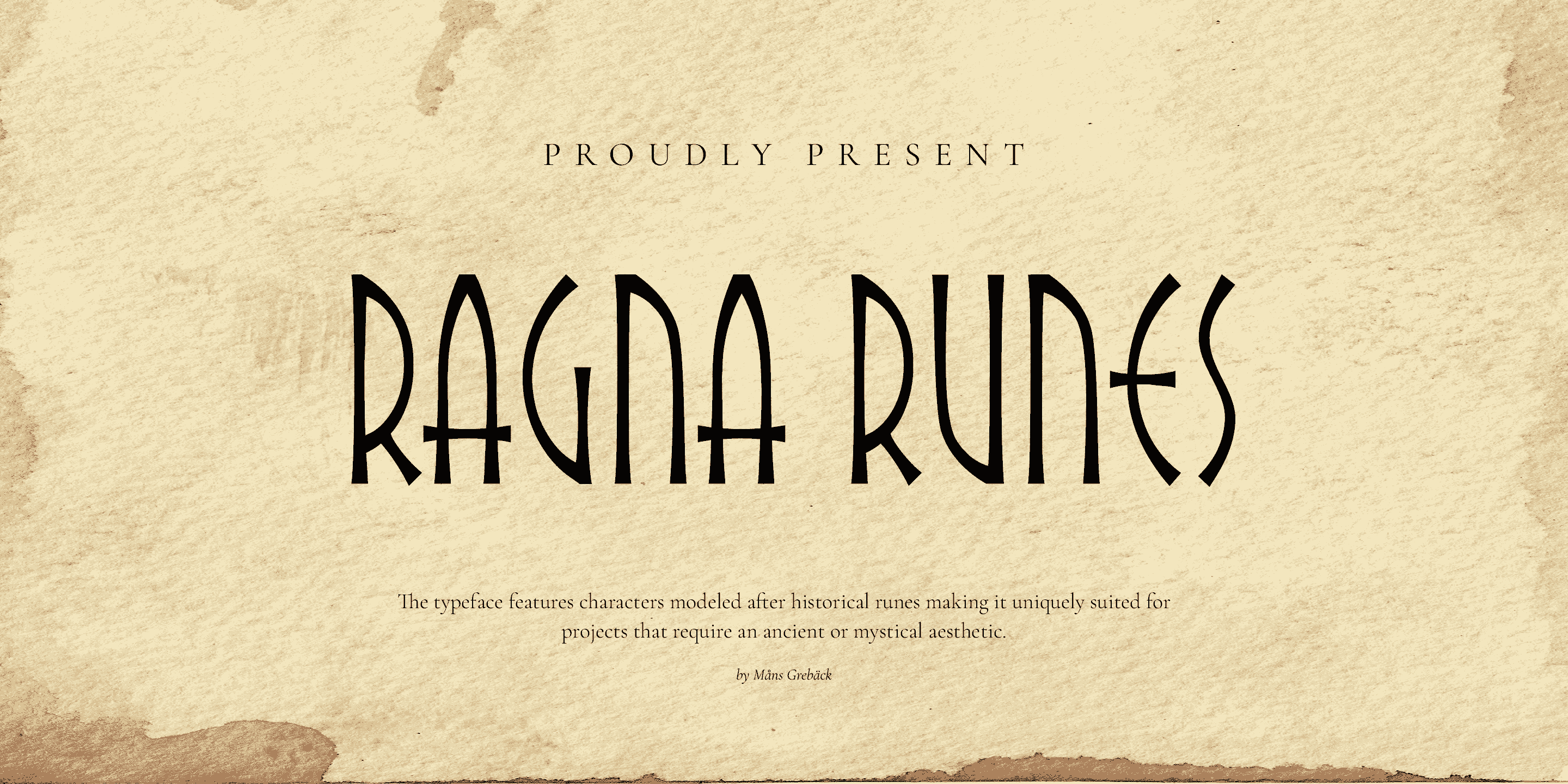
Ragna Runes Font is perfect for Viking-themed gaming logos, Norse mythology projects, ancient Scandinavian exhibitions, runic divination materials, medieval fantasy book covers, Nordic heritage branding, mystical jewelry packaging, and apocalyptic entertainment marketing. This mystically powerful typeface excels in projects requiring ancient Nordic authority and runic magic where Viking heritage meets contemporary fantasy storytelling.
What makes Ragna Runes Font exciting is its authentic interpretation of ancient Norse runic traditions through mysteriously crafted letterforms that embody the mystical power and warrior spirit of Viking civilization. The font features runic-inspired characters with ancient proportions and mystical details that evoke stone carvings, sacred symbols, and the prophetic power of ancient Nordic divination. Its mystical character makes it perfect for entertainment and cultural brands celebrating Norse heritage and the enduring fascination with Viking mythology.
Ragna Runes Font family includes various runic weights and mystical alternatives that enhance its ancient appeal while providing design flexibility for fantasy and heritage projects. The family typically offers regular, bold, and carved stone variations, along with authentic runic symbols, Norse ornaments, and Viking-themed decorative elements that complement ancient and fantasy design themes perfectly.
Whether you're designing Viking gaming interfaces, creating Norse mythology educational materials, or developing ancient Scandinavian cultural exhibitions, Ragna Runes Font Free Download provides the perfect mystical solution for projects requiring runic authenticity and Nordic power. This font's ancient authority and mystical heritage make it essential for brands connecting with audiences fascinated by Viking culture and Norse spiritual traditions.
The mystically carved letterforms and runic proportions of Ragna Runes Font create immediate connections to ancient Nordic wisdom while maintaining excellent readability for modern fantasy and educational applications. Its distinctive runic personality and Viking heritage make it an invaluable tool for designers working with gaming, entertainment, and cultural heritage brands. Download Ragna Runes Font today and unleash the ancient power of Norse runic magic in your creative projects with this mystically authentic typeface that perfectly captures the spirit of Viking wisdom and Nordic mystical traditions.